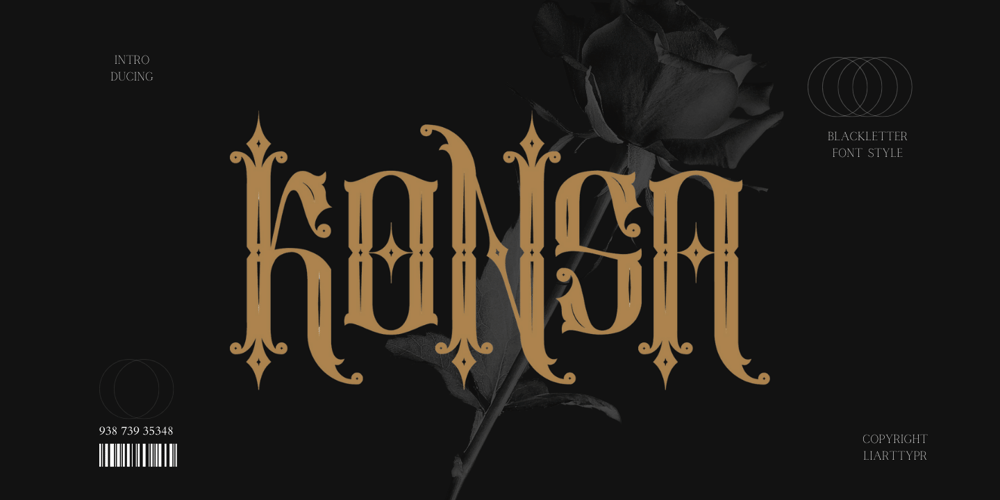
Konsa
Konsa font
Konsa Font Family was designed by Ali Sifak Muftari and published by Liartgraphic. Konsa contains 1 styles and family package options. Konsa is a robust font designed to inject mystery and power into your designs. With its blackletter genre, it merges classic elements with modern twists, creating a dramatic impression. Each meticulously crafted letter ensures clarity and assertiveness. Ideal for striking headlines and captivating logos, Konsa offers flexibility for various design needs. Suitable for branding, graphic design, and experimental typography, it blends classic elegance with contemporary flair. Konsa’s unique characteristics make it stand out in any project, offering versatility and expressive capability. Whether for branding or artistic endeavors, Konsa adds a touch of strength and sophistication to your work.